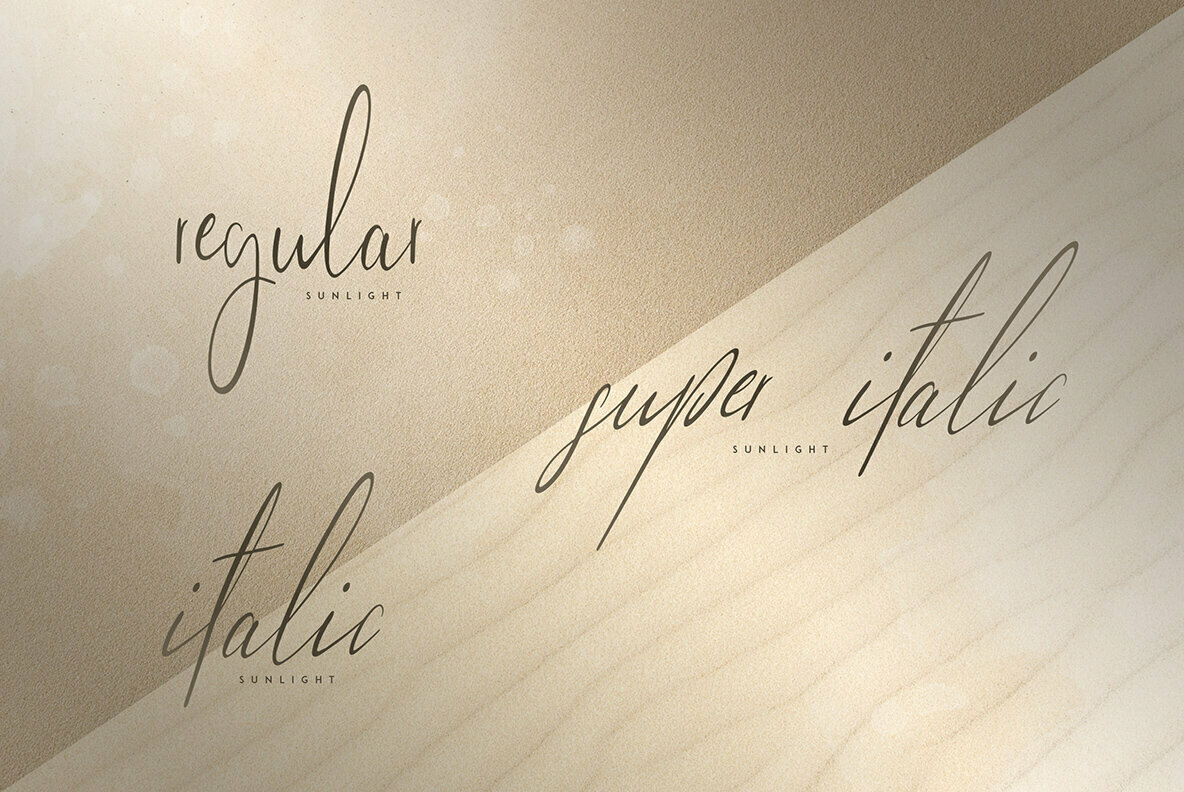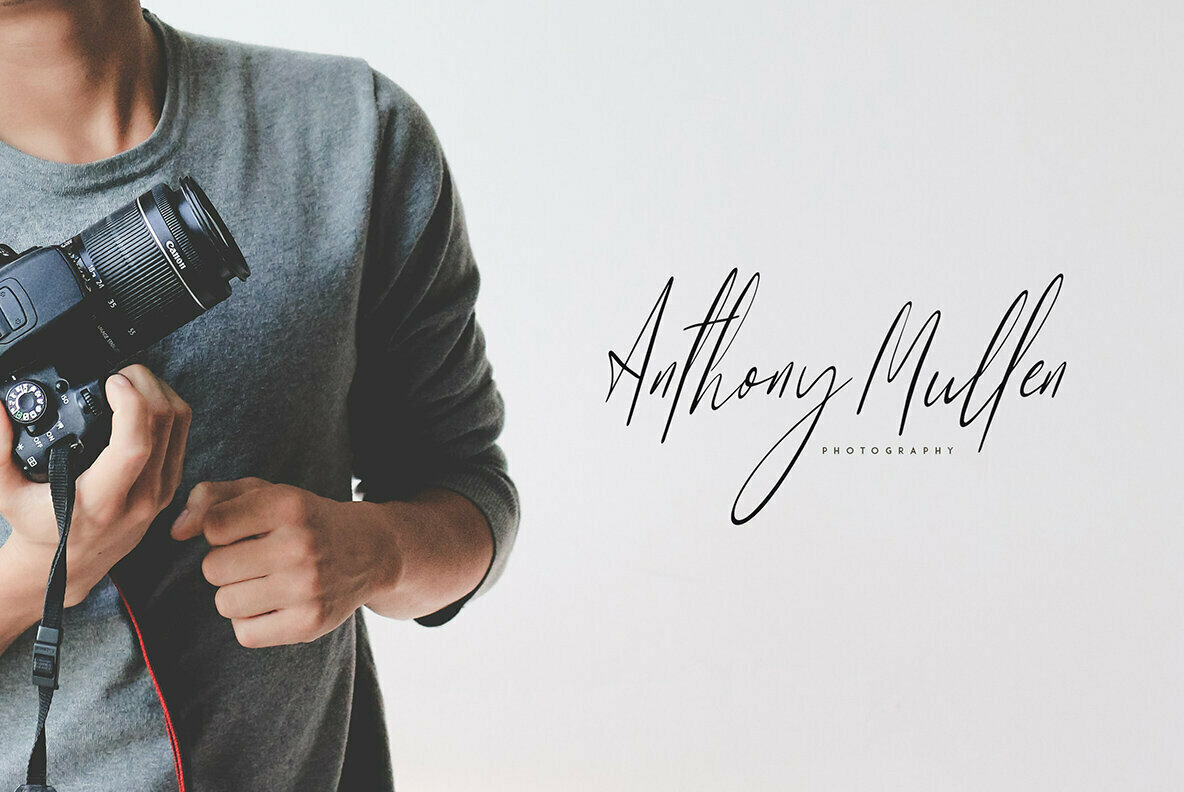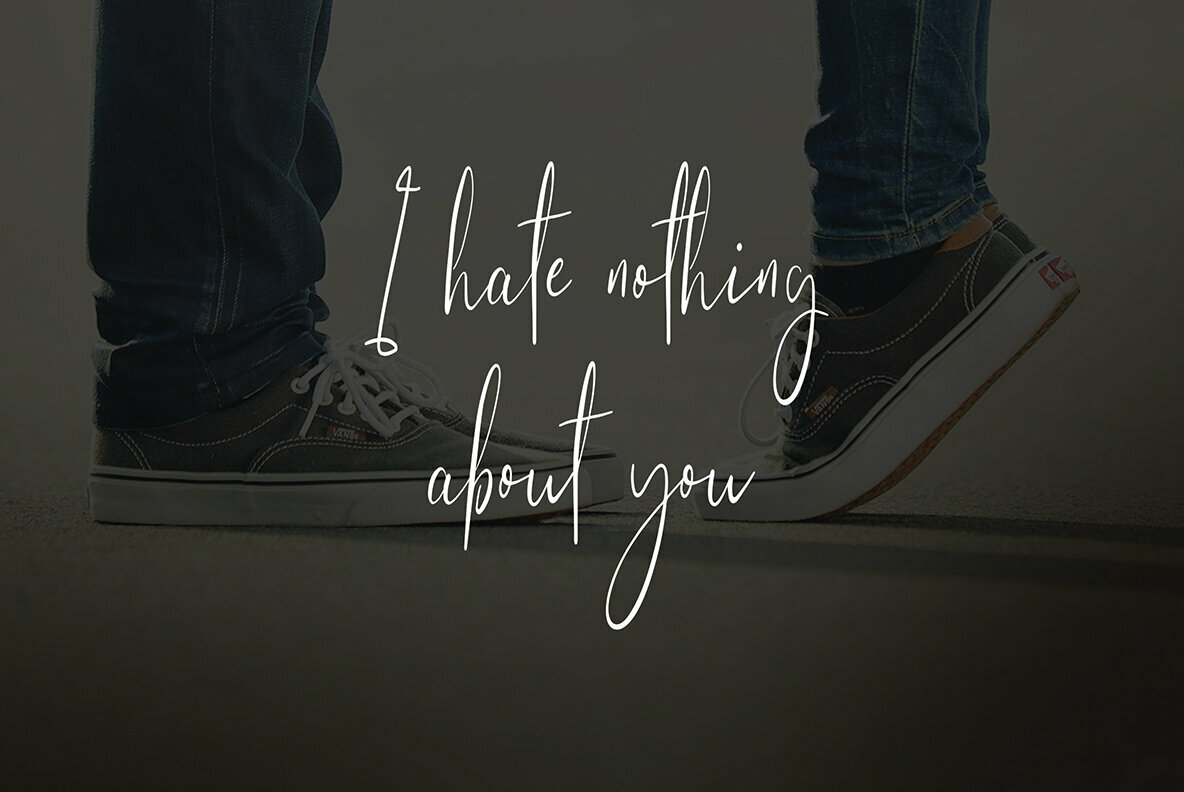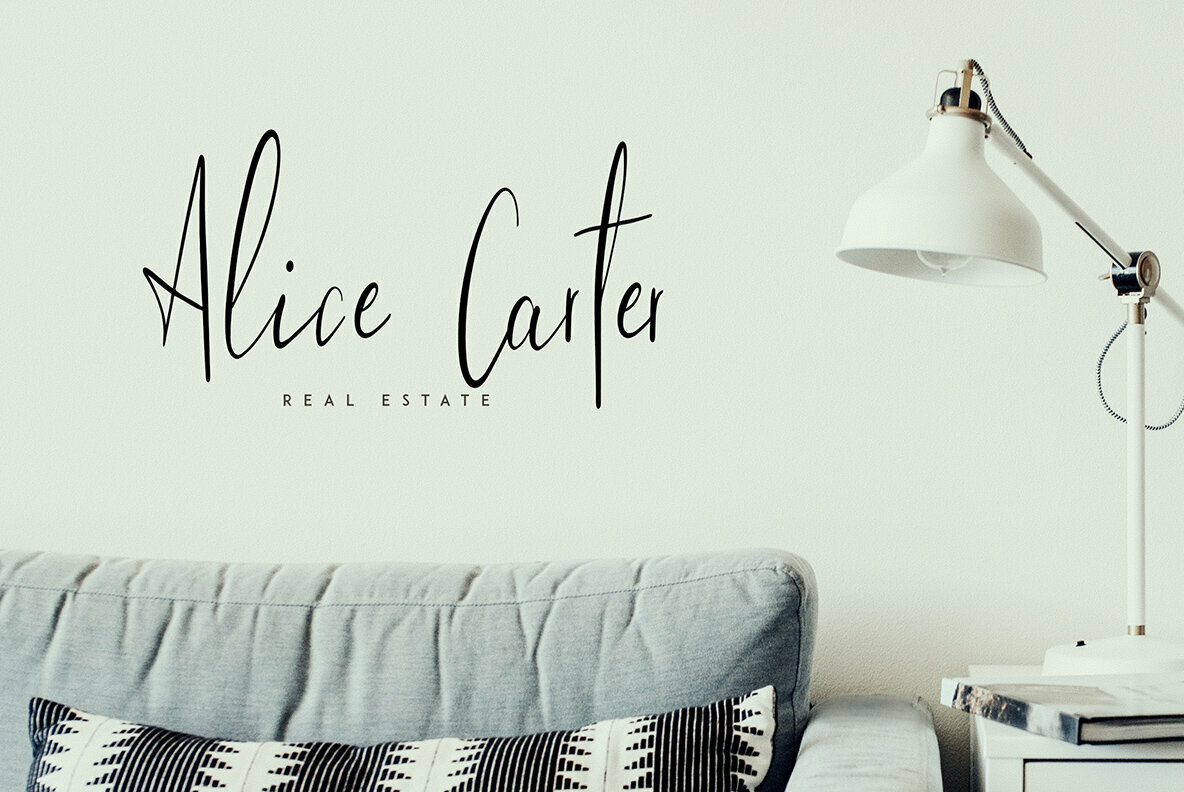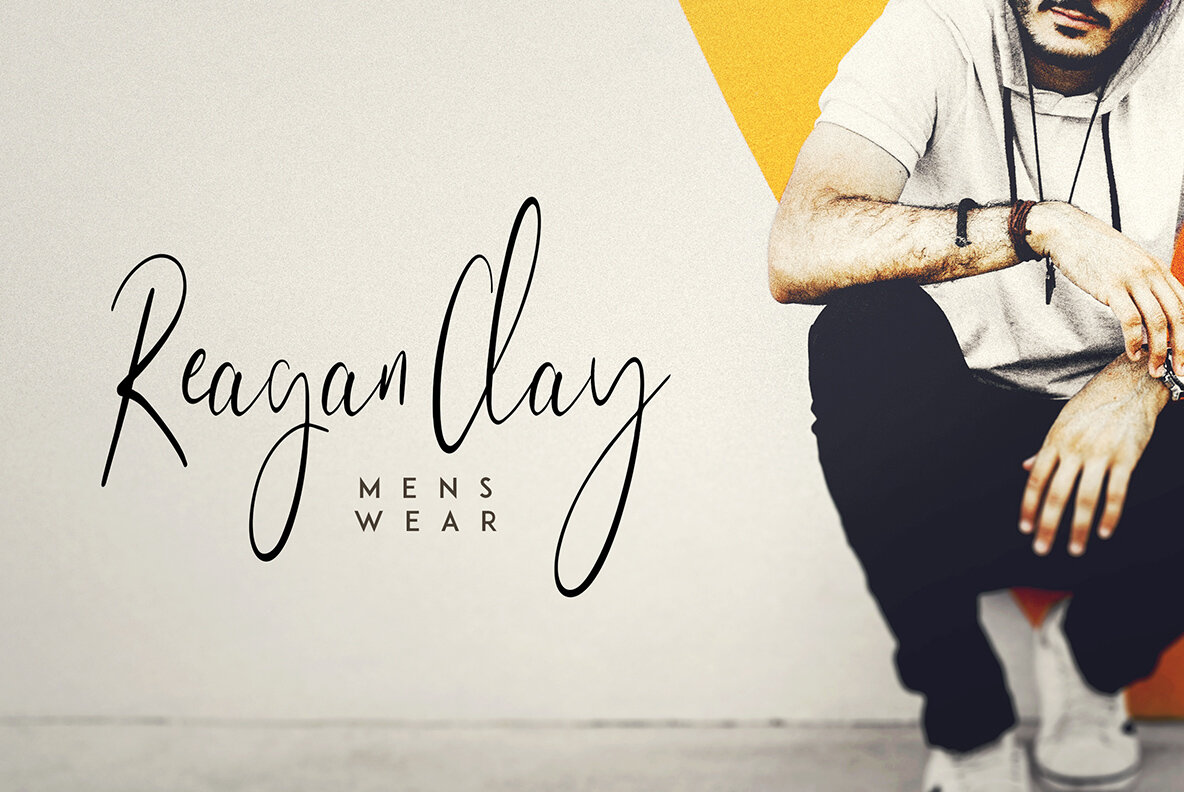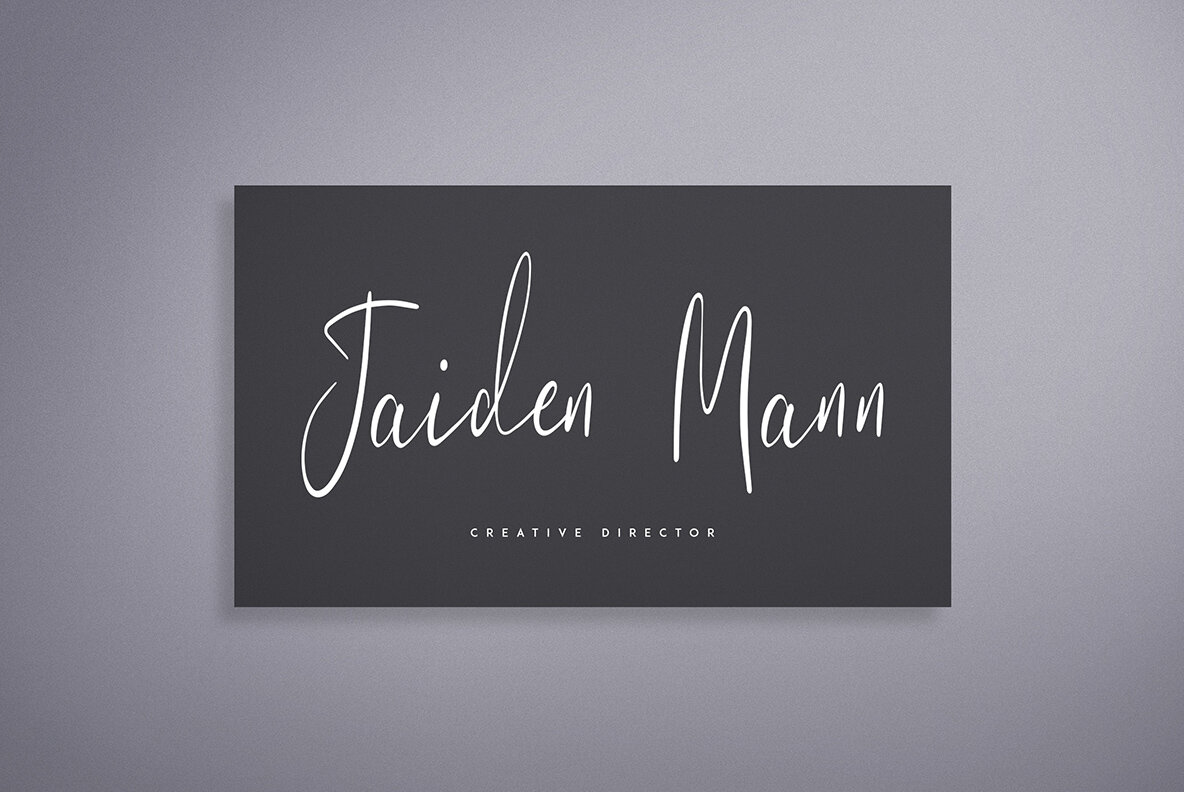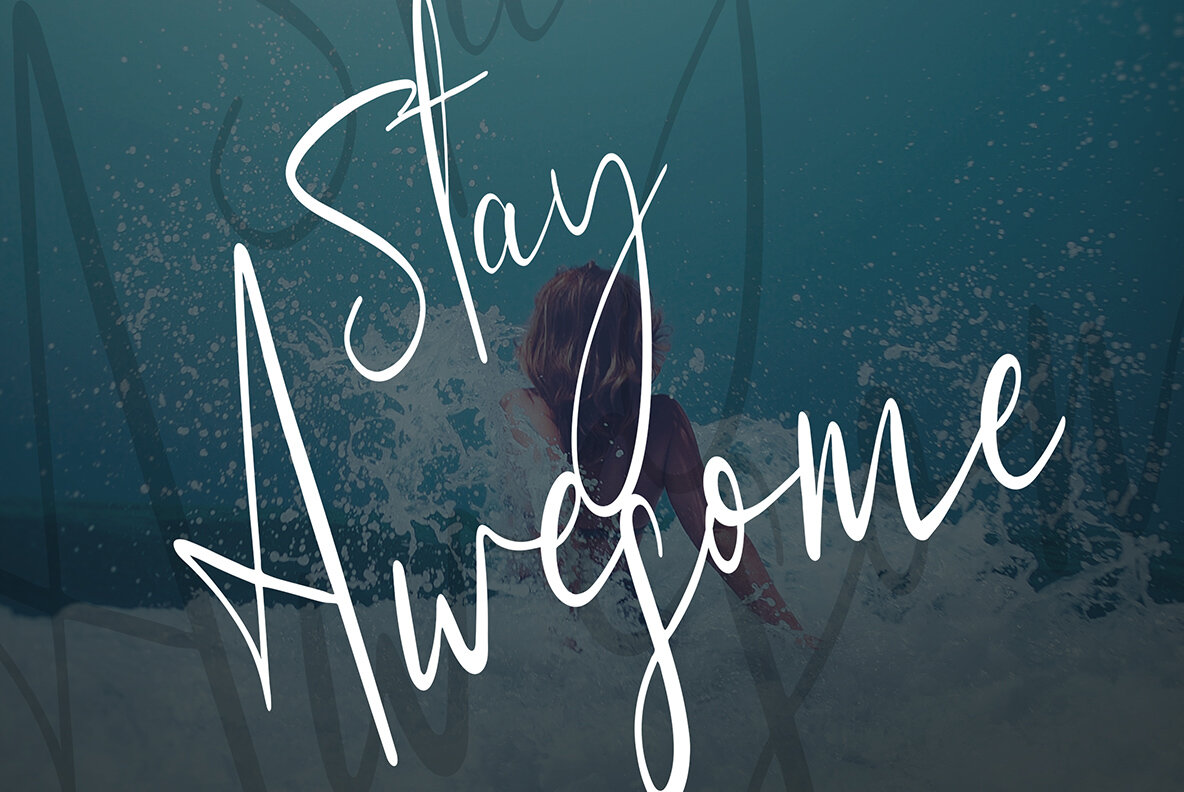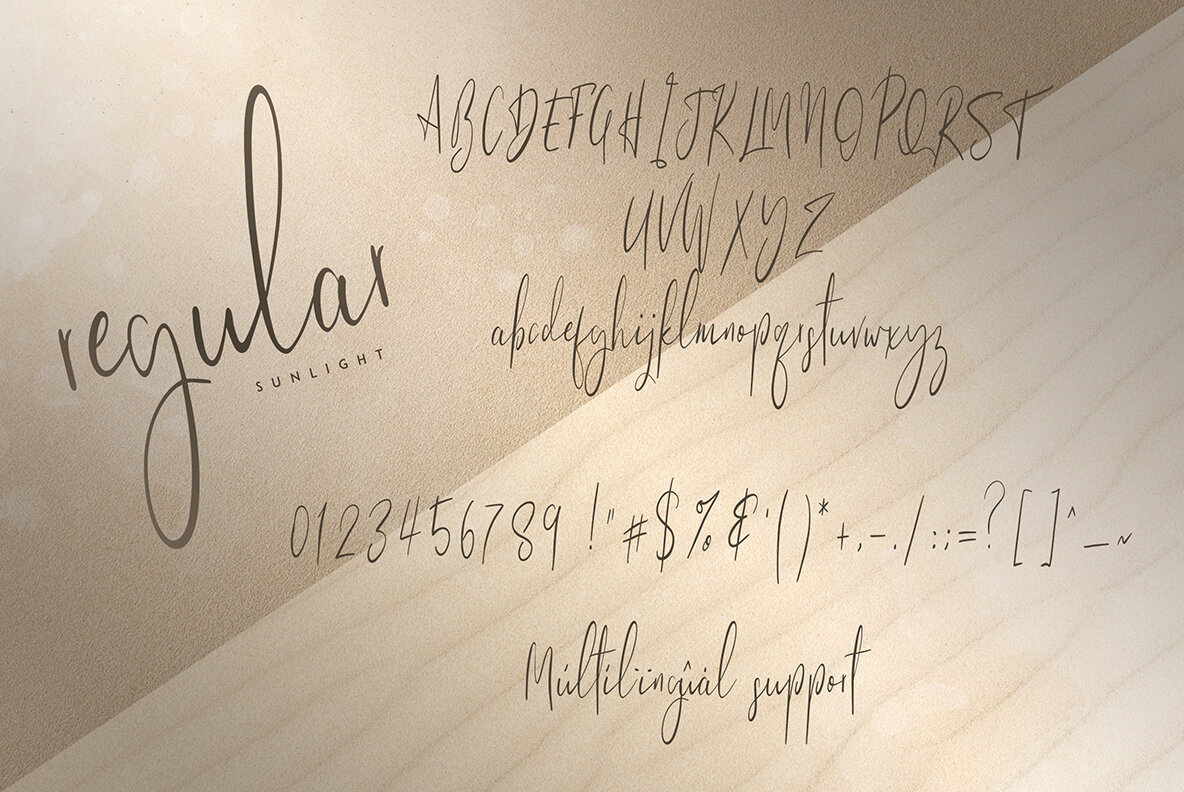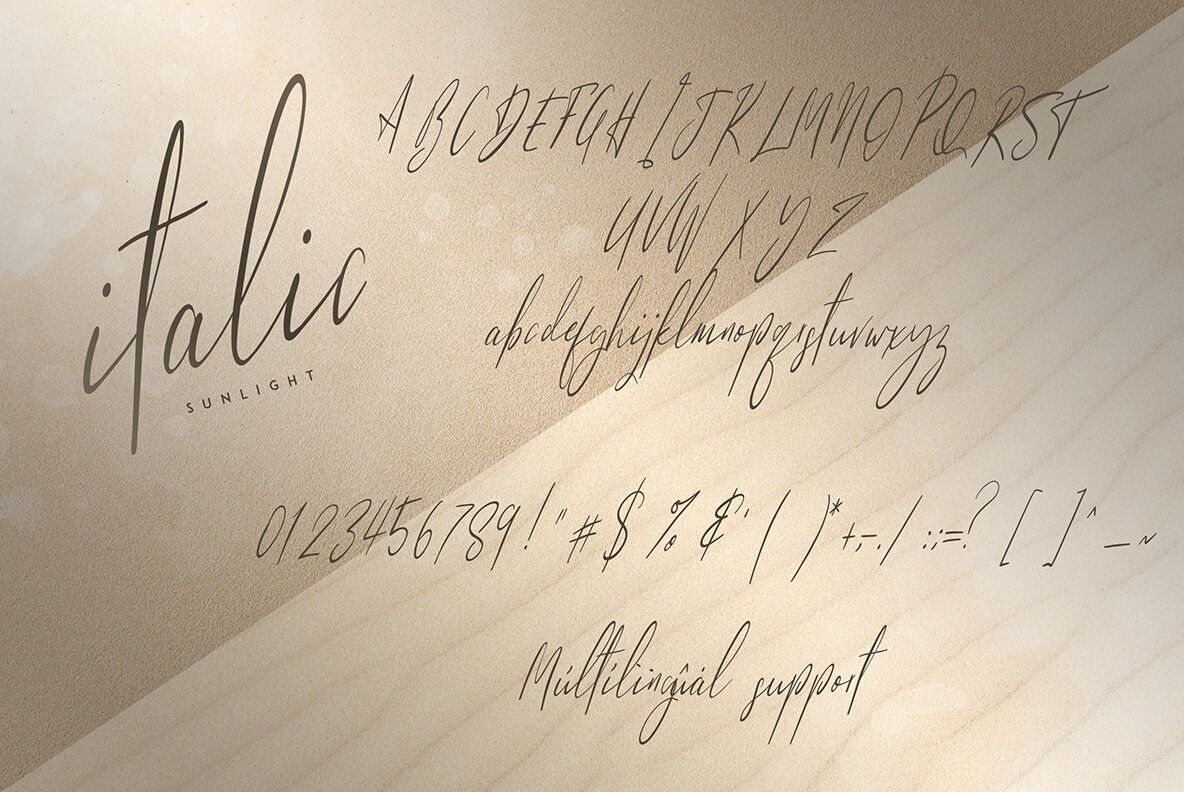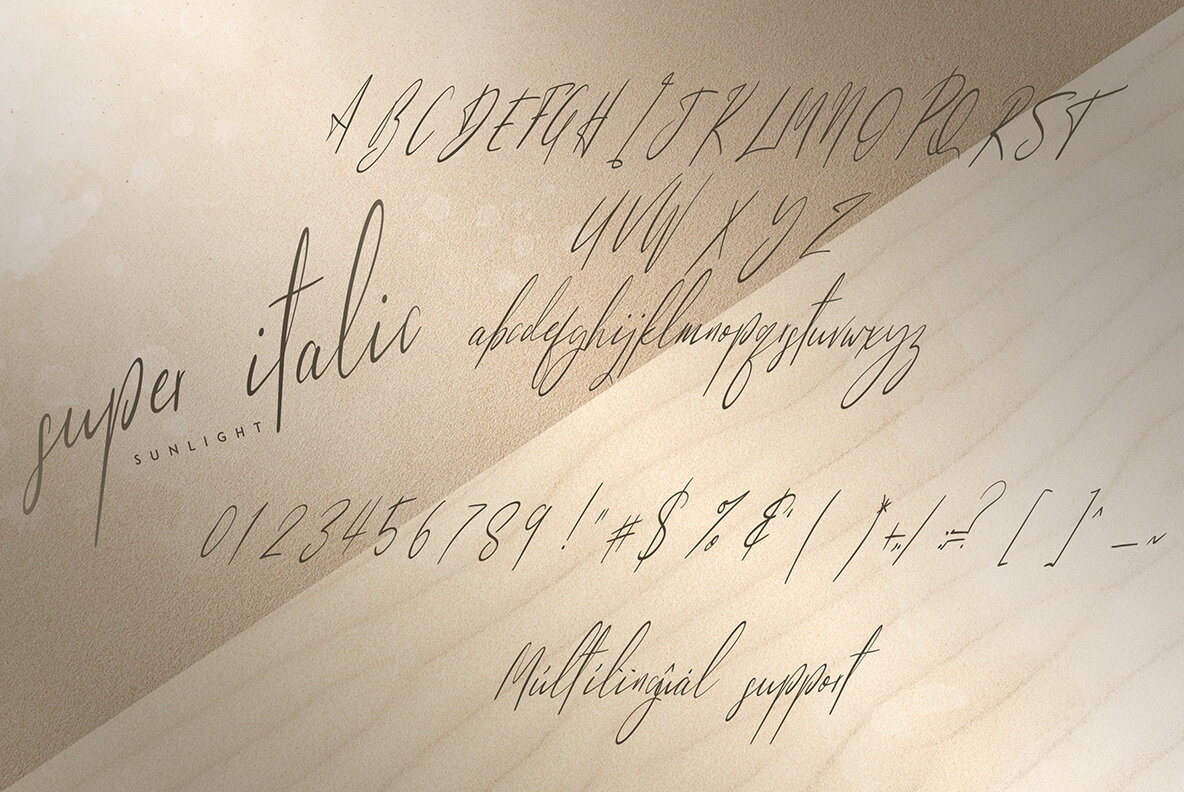
Sunlight Font
Sunlight Regular
Sunlight Italic
Sunlight Super Italic
Sunlight, crafted by VP Creative Shop, offers a clean and versatile signature typeface available in three distinct styles, each providing extensive multilingual support. Its refined design ensures it makes a significant visual impact, whether used in large displays or more intimate text settings. Sunlight is exceptionally well-suited for diverse applications, ranging from branding projects and homeware designs to product packaging and magazine headers. It also excels as a stylish text overlay, adding a touch of sophistication to any backdrop.Sunlight: A Versatile Signature Typeface